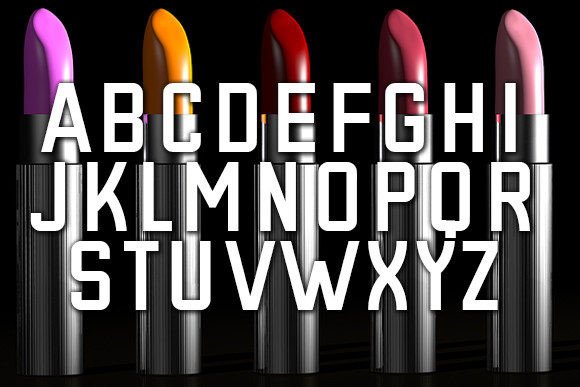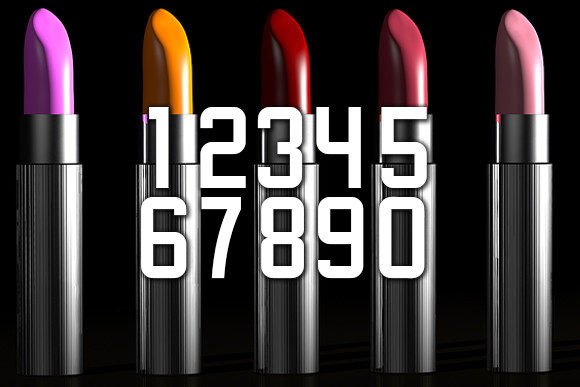
Introduction to Precedence Font
Precedence is an elegant and exquisite sans-serif font that exudes sophistication and class.
Its clean lines and minimalistic design make it a versatile choice for a variety of design projects, from fashion to luxury brands With its timeless appeal and refined aesthetics, this font is the perfect choice for designs that require a touch of refinement.
Key Features of Precedence Font